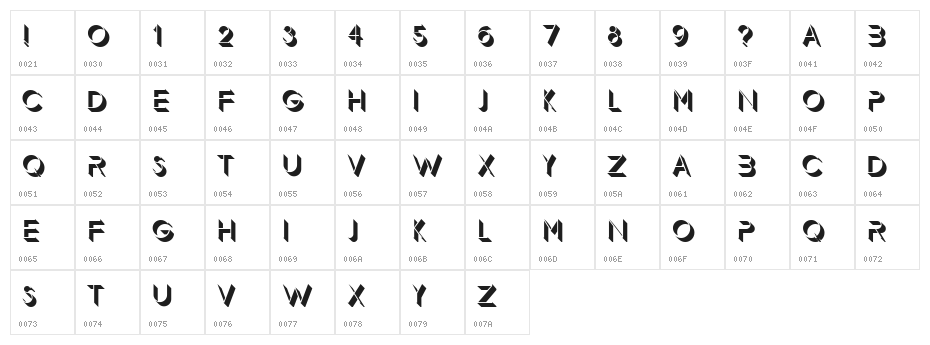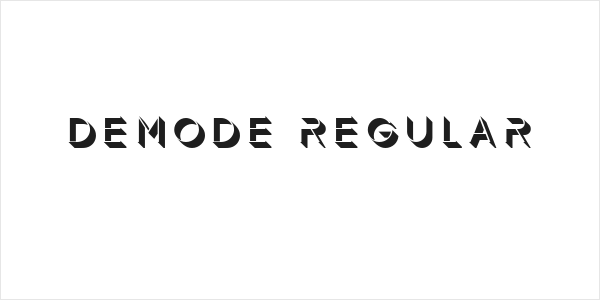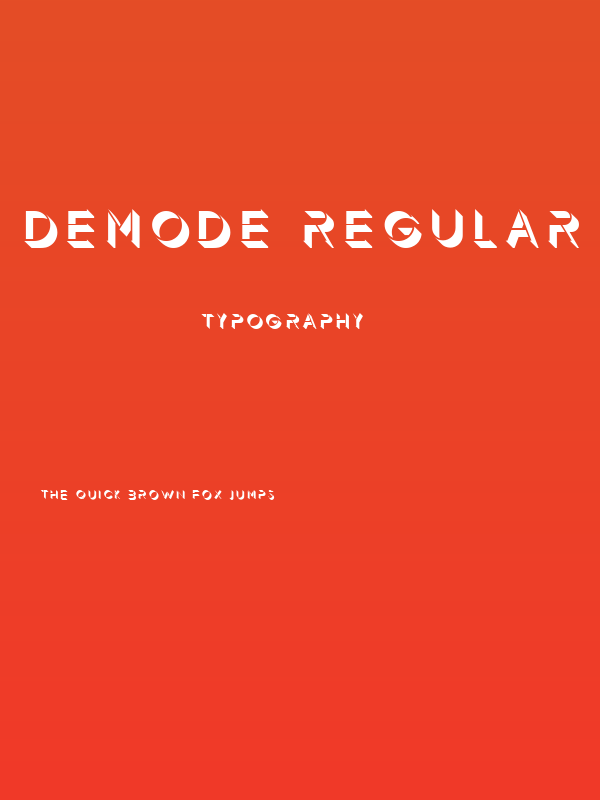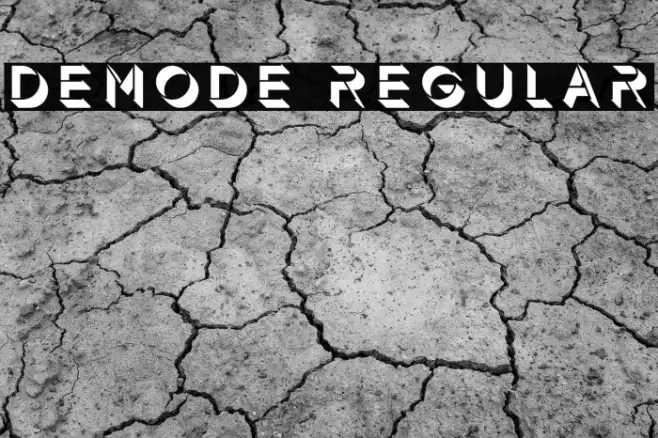
Demode Regular Font
Demode Regular Description
This font features a bold and geometric design with a modern twist. Each character is crafted with sharp angles and a distinct cut-out effect, giving it a unique, futuristic appearance. The uppercase letters are particularly striking, with a strong presence and a sense of movement. The numbers and special characters maintain the same stylistic elements, ensuring consistency across all glyphs. This font's high contrast and bold weight make it ideal for attention-grabbing designs.